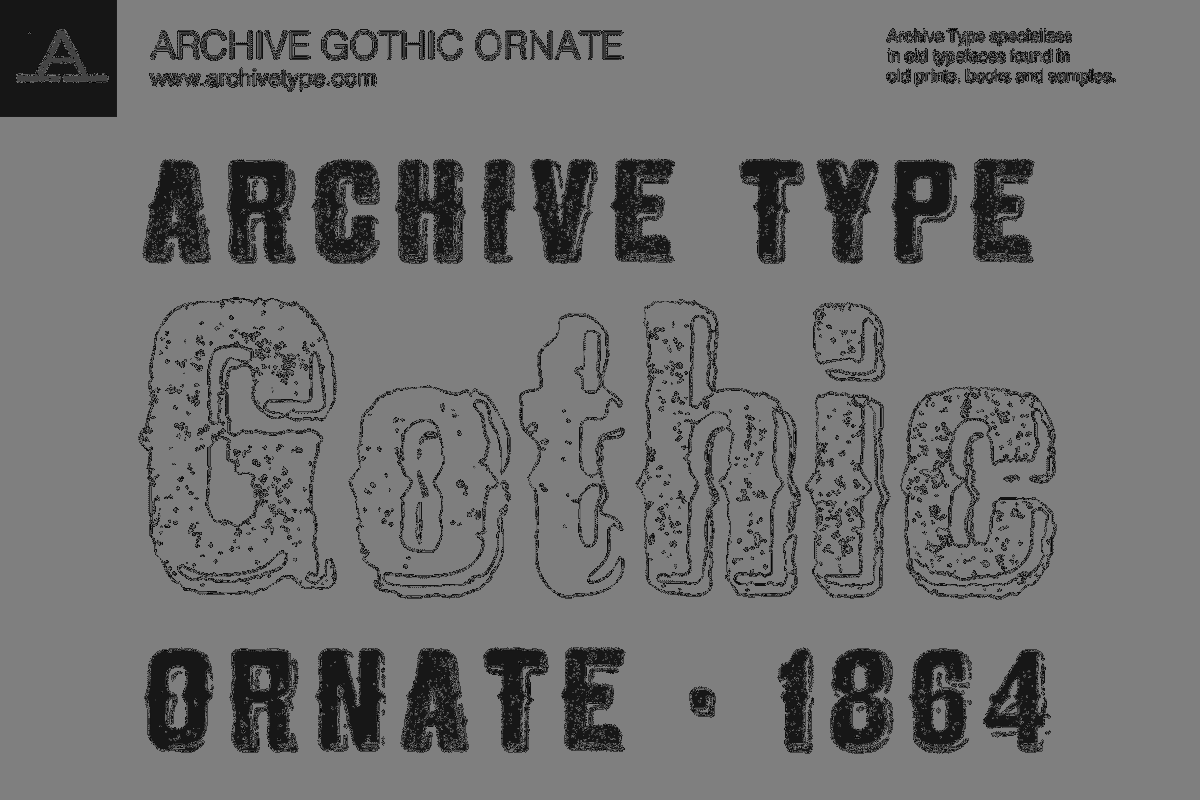
You must purchase this font for commercial use. However, you can download Archive Gothic Ornate Font Free Download for testing purposes. Archive Gothic Ornate is a decorative serif font with gothic influences, featuring intricate detailing and a vintage aesthetic. Perfect for creating impactful logos, headlines, posters, branding, and any project that needs a touch of elegance and historic charm.
The ornate and detailed design of Archive Gothic Ornate makes it ideal for projects that require bold, dramatic typography with an antique or gothic vibe. Whether you're designing for a luxury brand, a vintage-themed event, or a creative artistic project, this font adds sophistication and style to your designs.